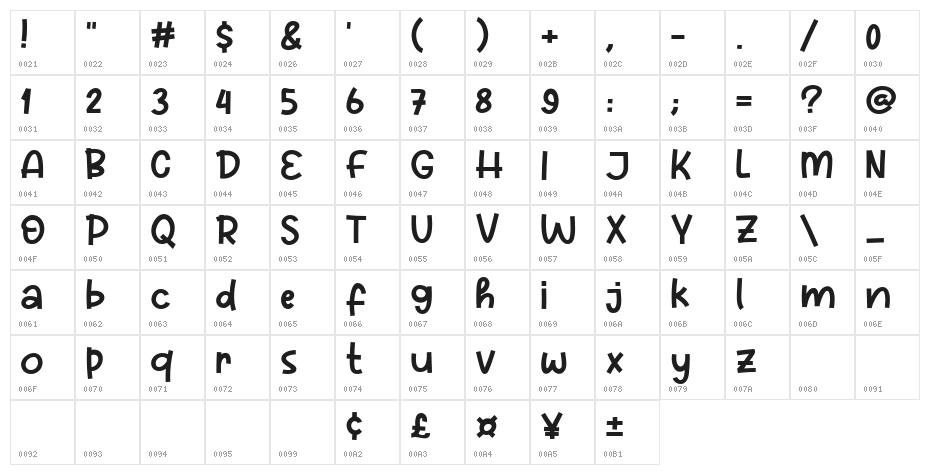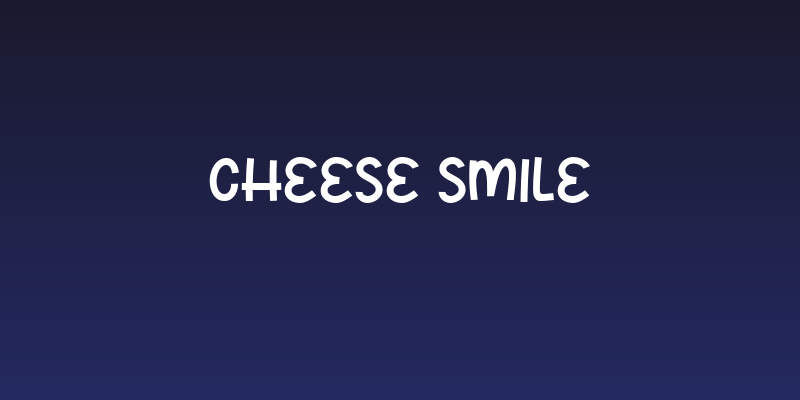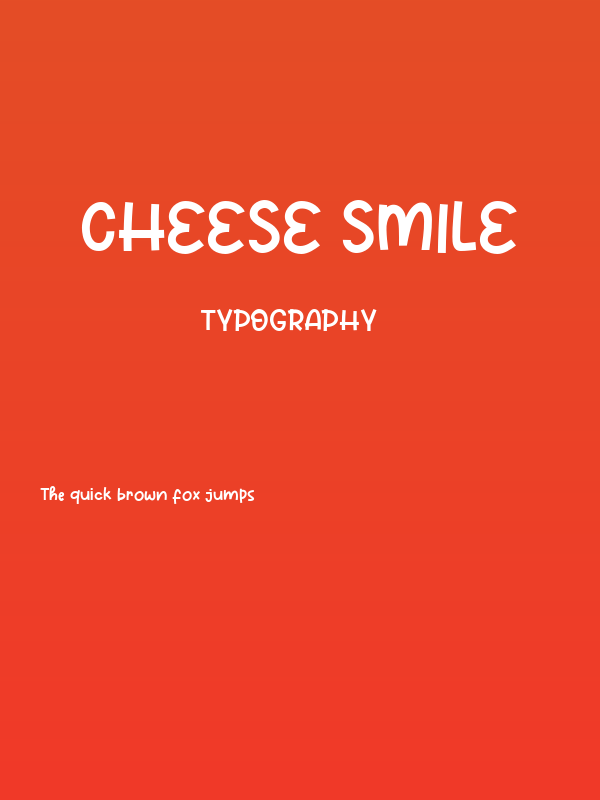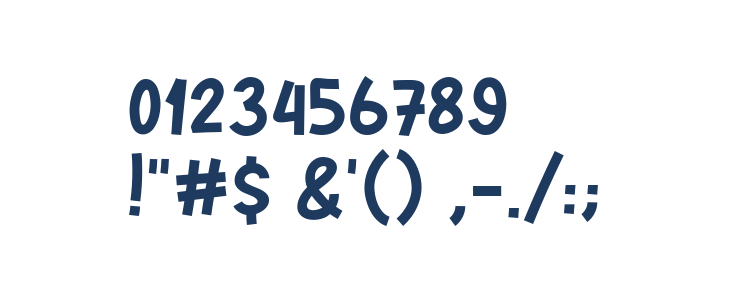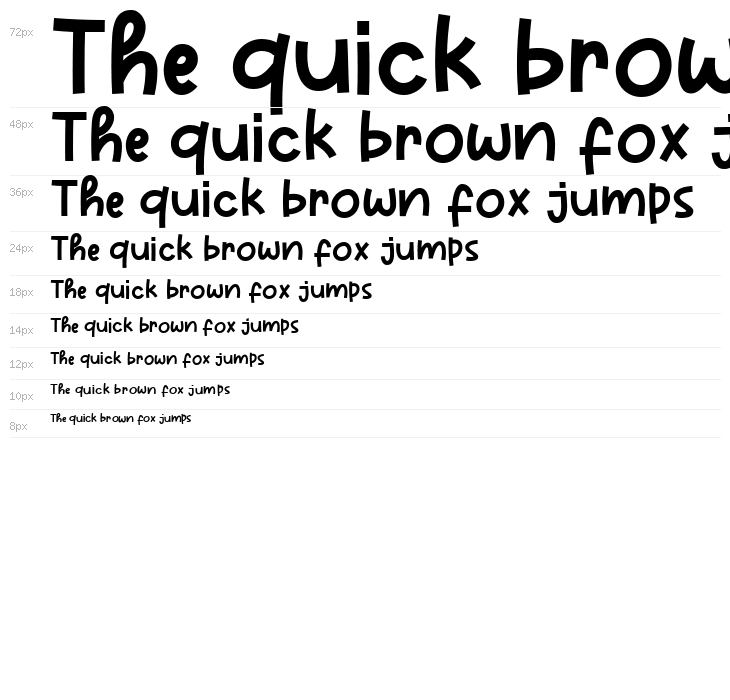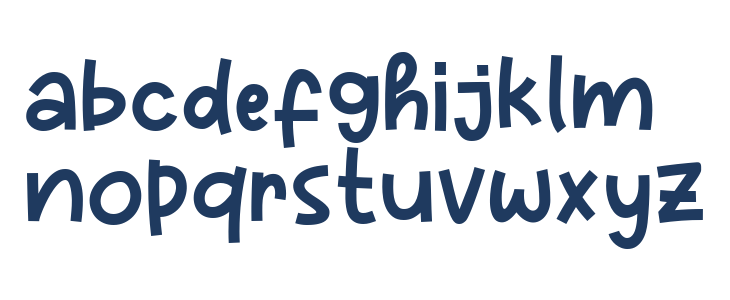
Cheese Smile Font
Cheese Smile Description
This playful and whimsical font features bold, rounded characters with a hand-drawn appearance. The letters have a slightly irregular baseline, adding to the casual and friendly feel. The strokes are thick and consistent, providing a strong visual presence. The font includes both uppercase and lowercase letters, numerals, and a variety of special characters, making it versatile for different uses. Its unique style is reminiscent of comic or cartoon lettering, making it ideal for projects that require a fun and approachable aesthetic.
| Proposed Projects | Ideal for children's books, comic strips, playful branding, and casual invitations. |